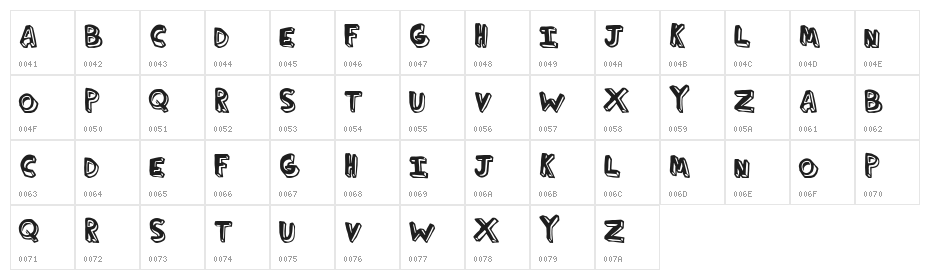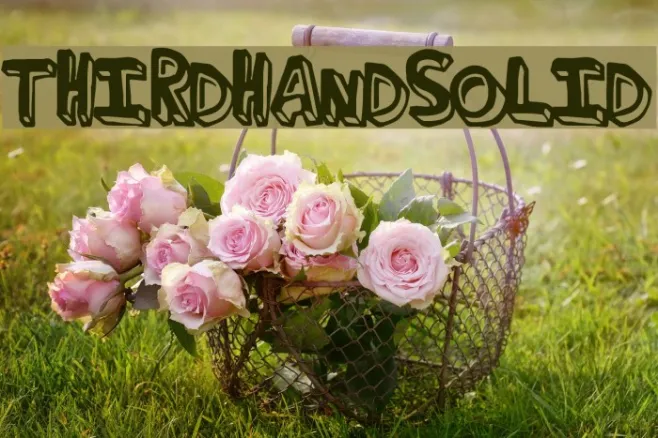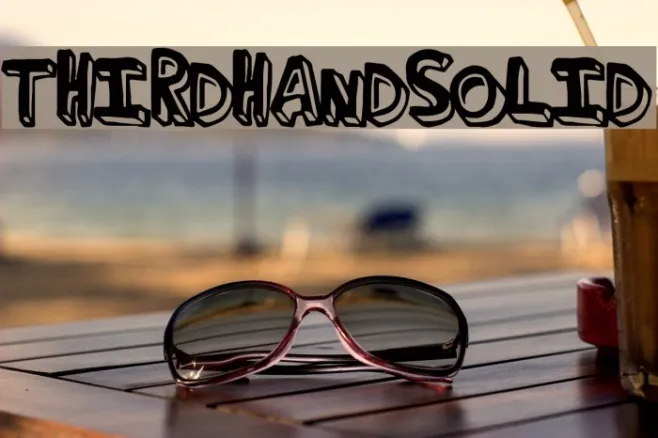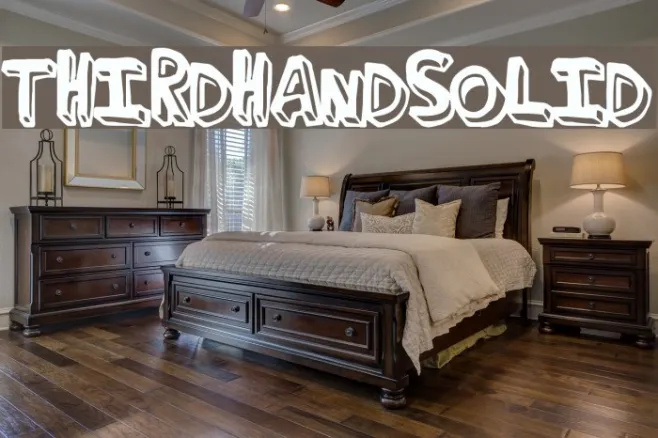
ThirdHand-solid Font
ThirdHand-solid Description
This font features a bold, playful design with a three-dimensional effect that gives each character a sense of depth and shadow. The letters are uppercase, with a hand-drawn, graffiti-like style that adds a dynamic and energetic feel. The strokes are thick and consistent, creating a strong visual impact. The font's unique style makes it stand out, with each letter appearing as if it is popping off the page. The bold outlines and shadowing contribute to its eye-catching appearance, making it suitable for creative and informal projects.
| Proposed Projects | Ideal for posters, album covers, street art designs, and any project requiring a bold, artistic touch. |